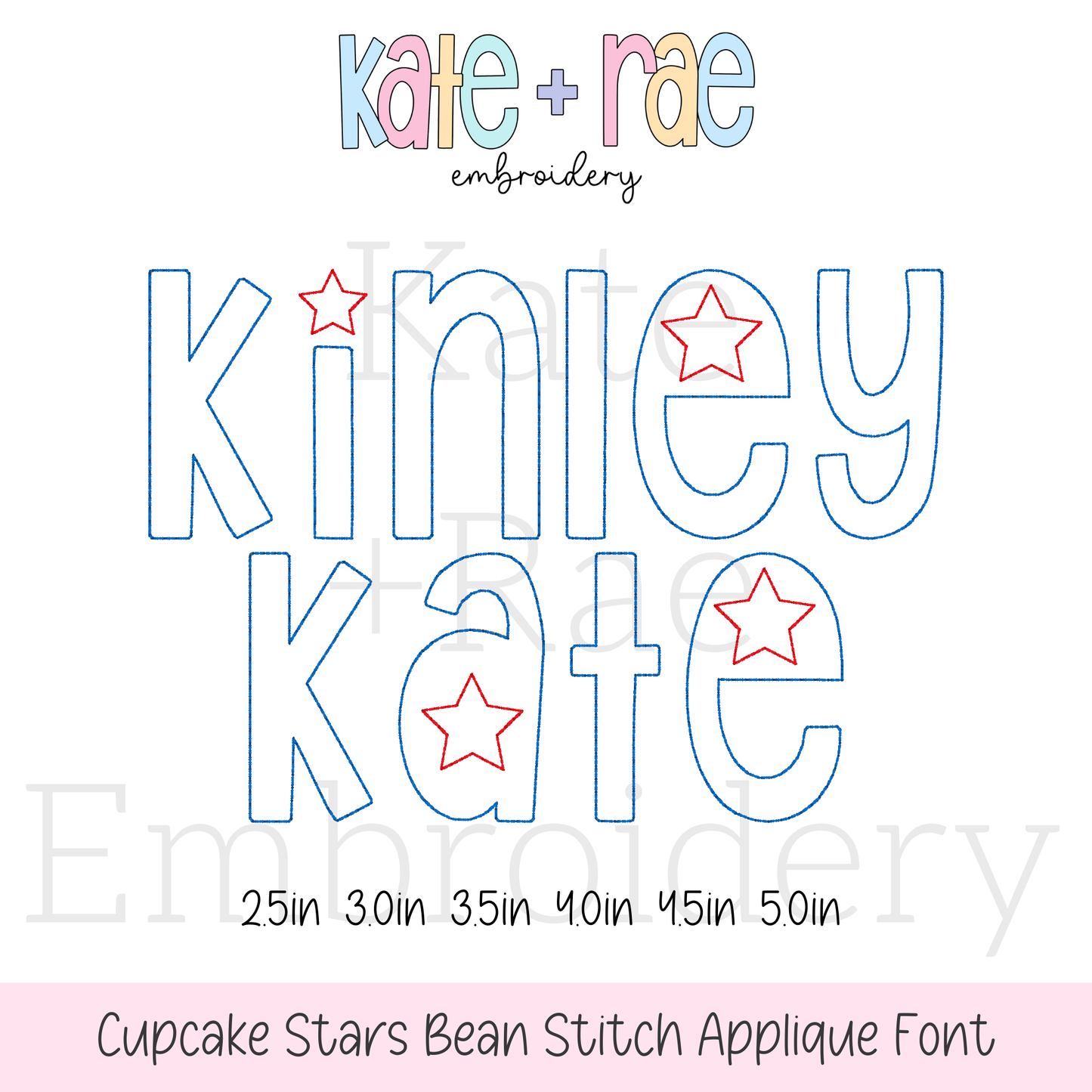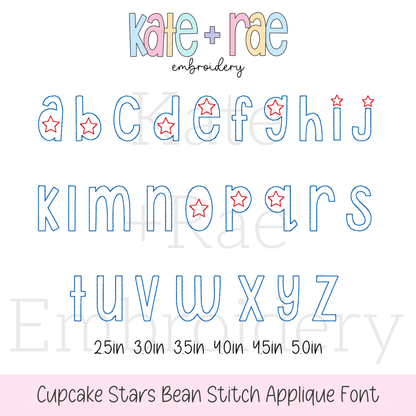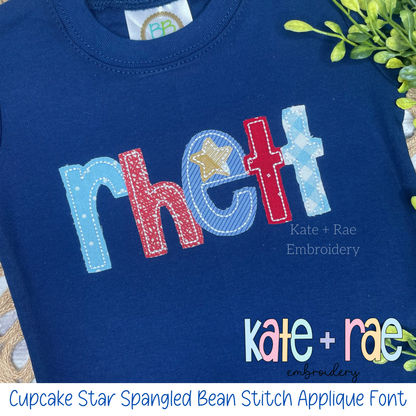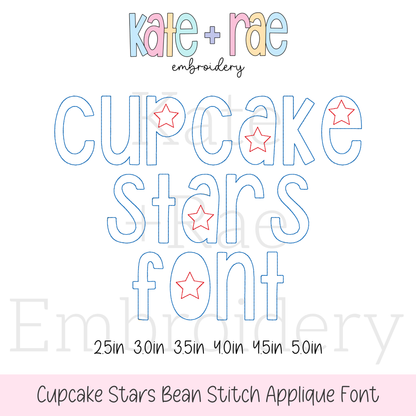
Cupcake Star Spangled Bean Stitch Applique Font
Meet Cupcake Star Spangled, a patriotic bean stitch applique font! Stitch names on Fourth of July shirts and summer outfits.